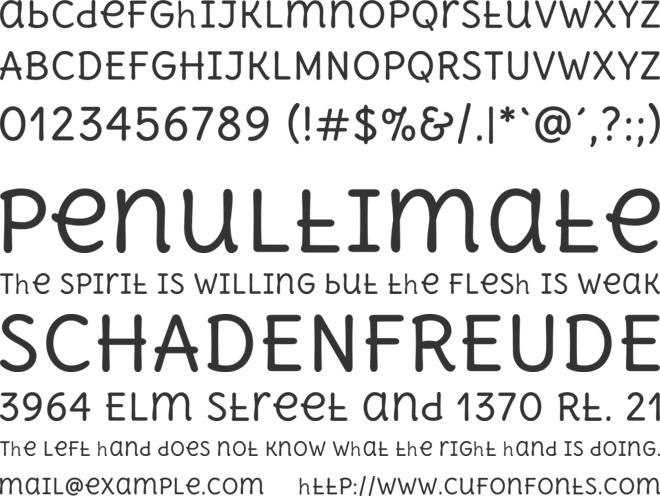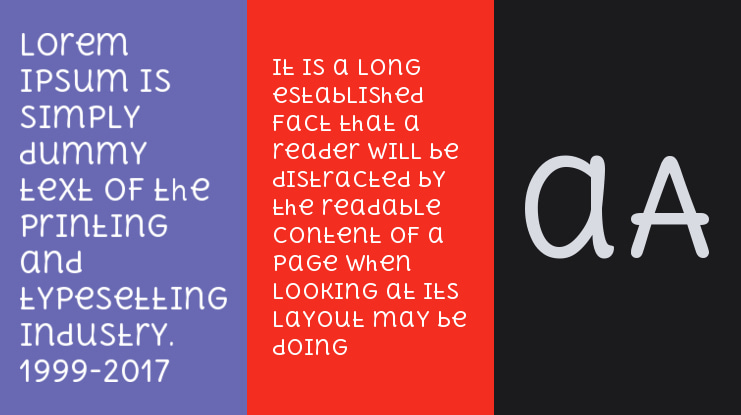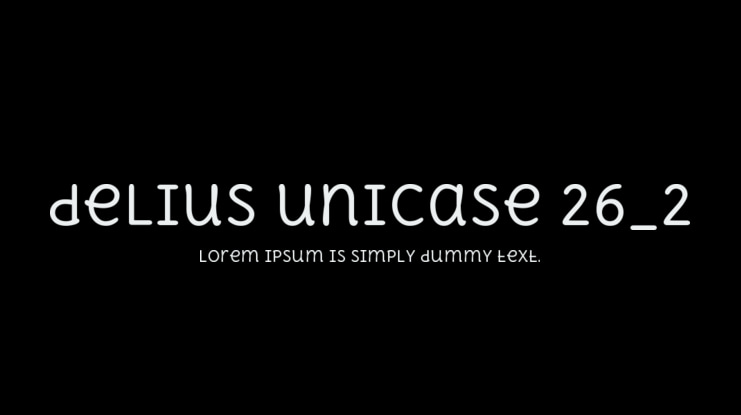
delius unicase 26_2 Font Family
Natalia Raices
these are derived from original delius unicase fonts for using in indian languages vhere no niid of kpitl letteres & f q x w z